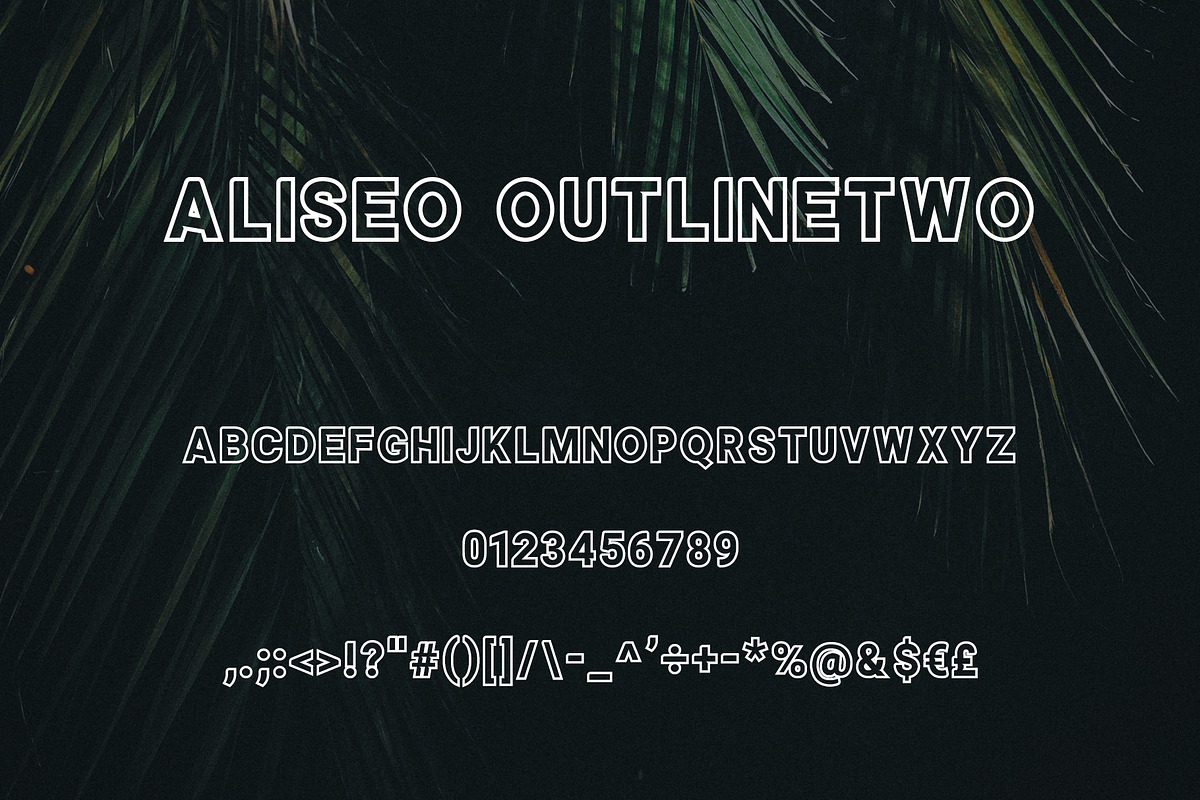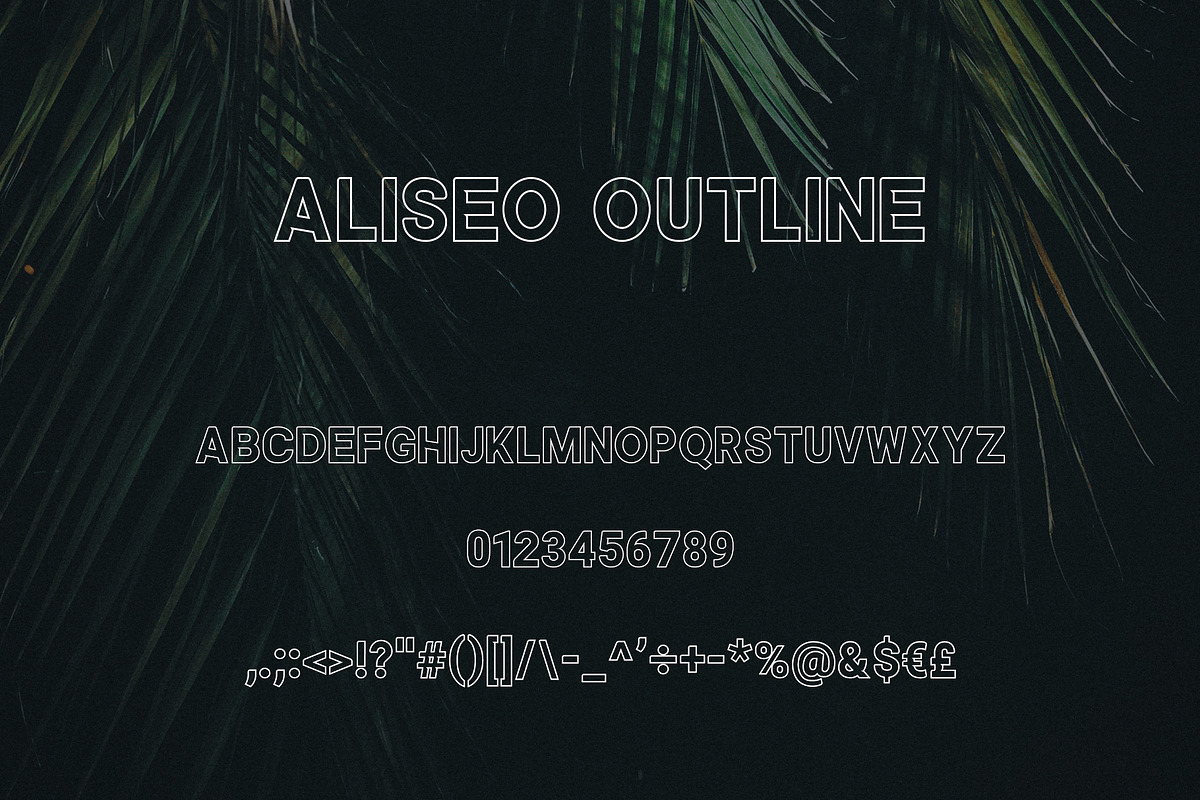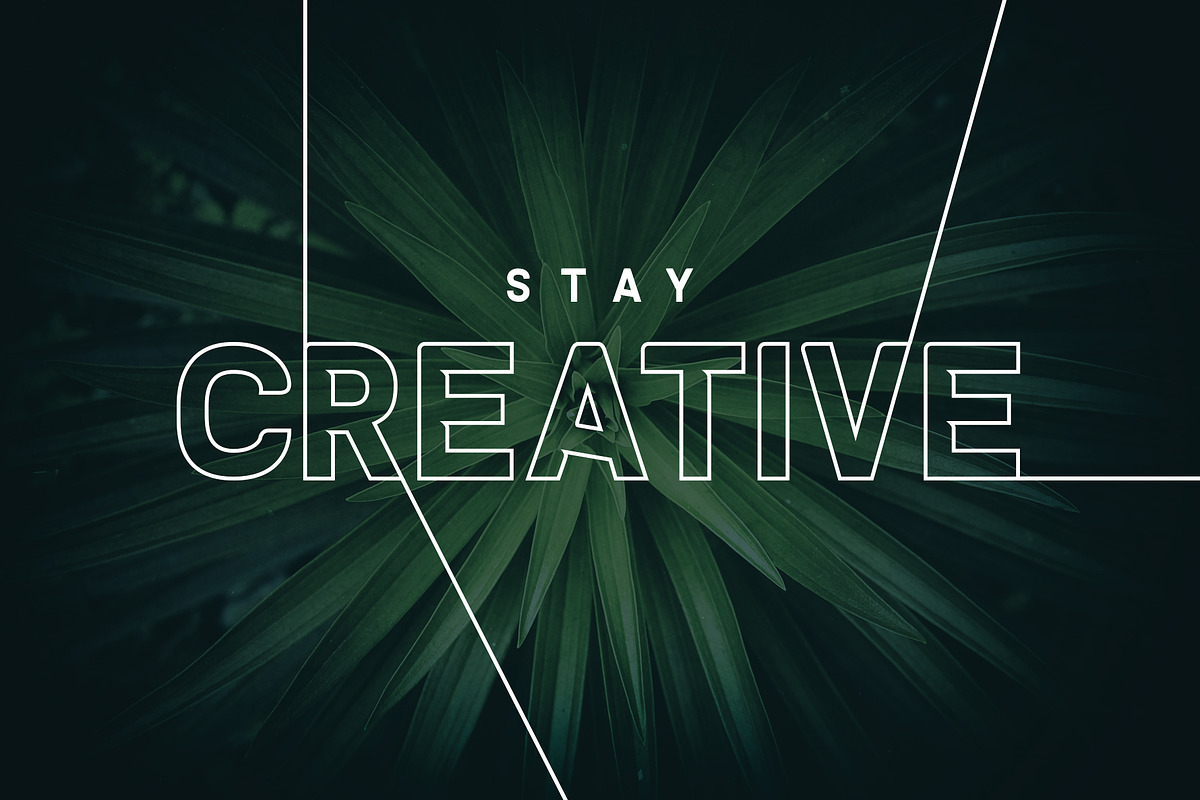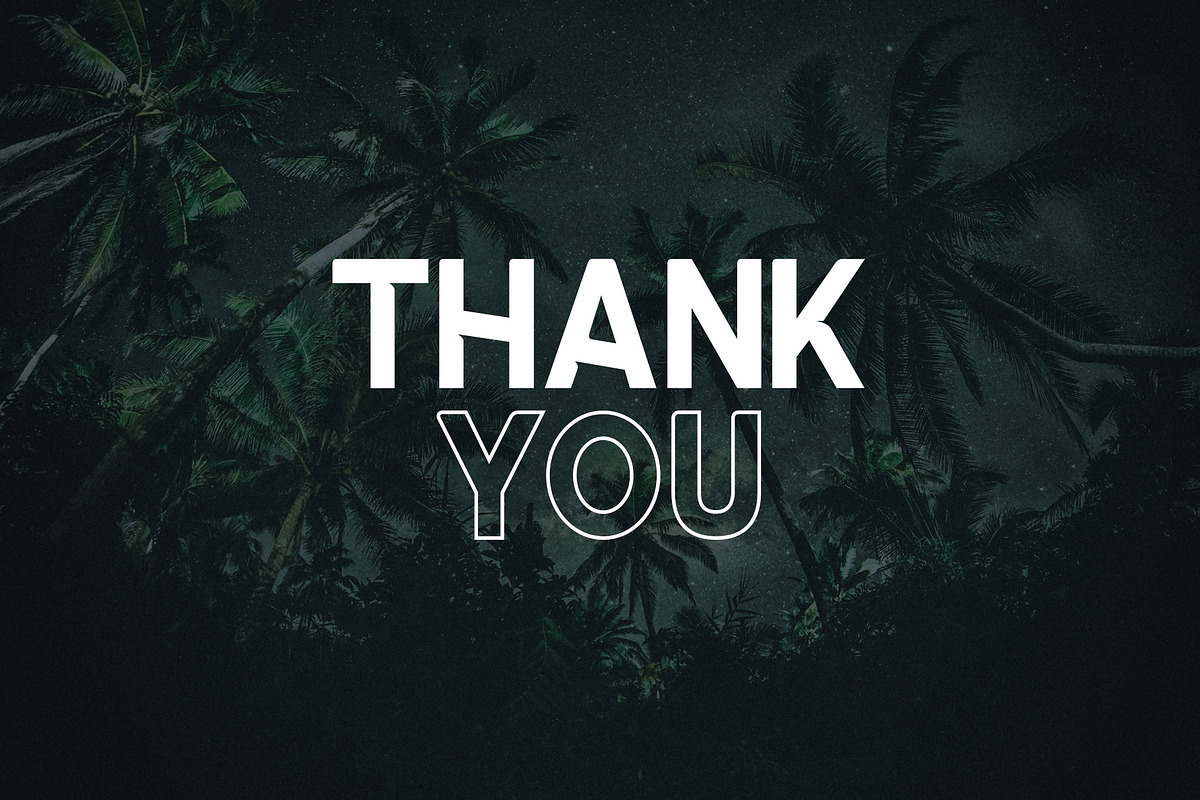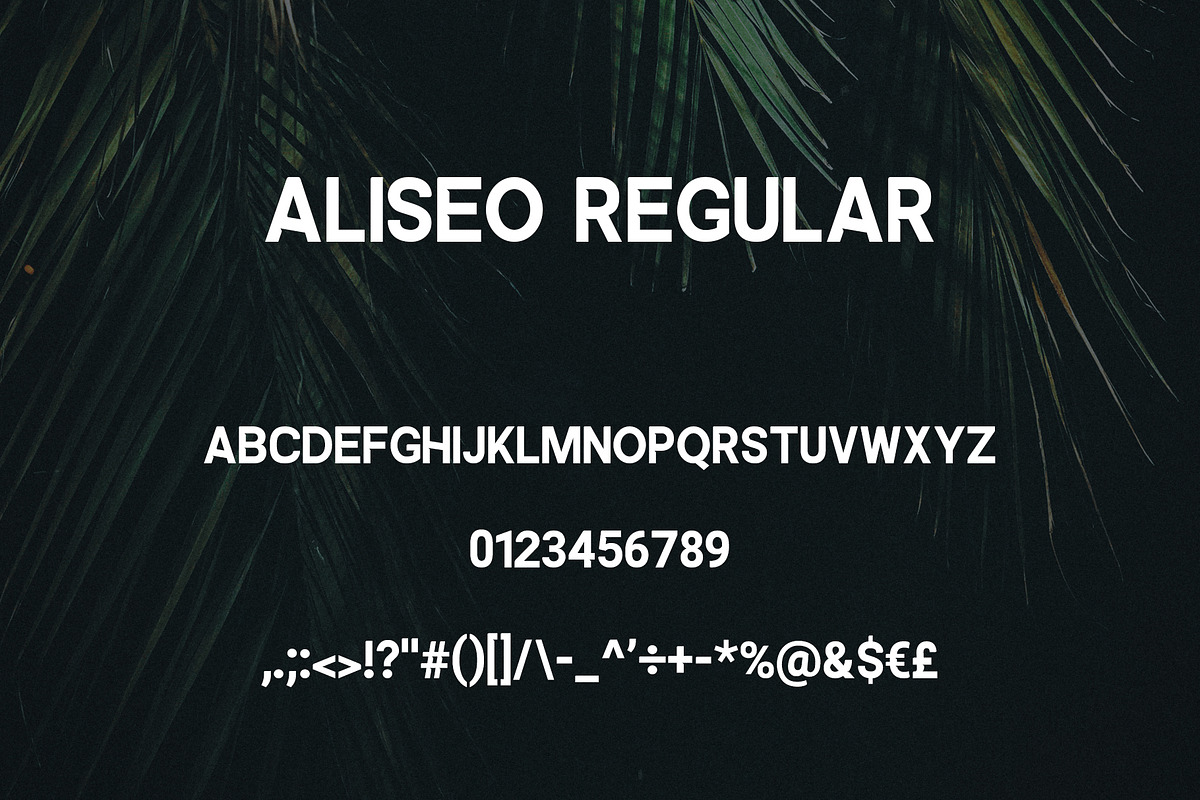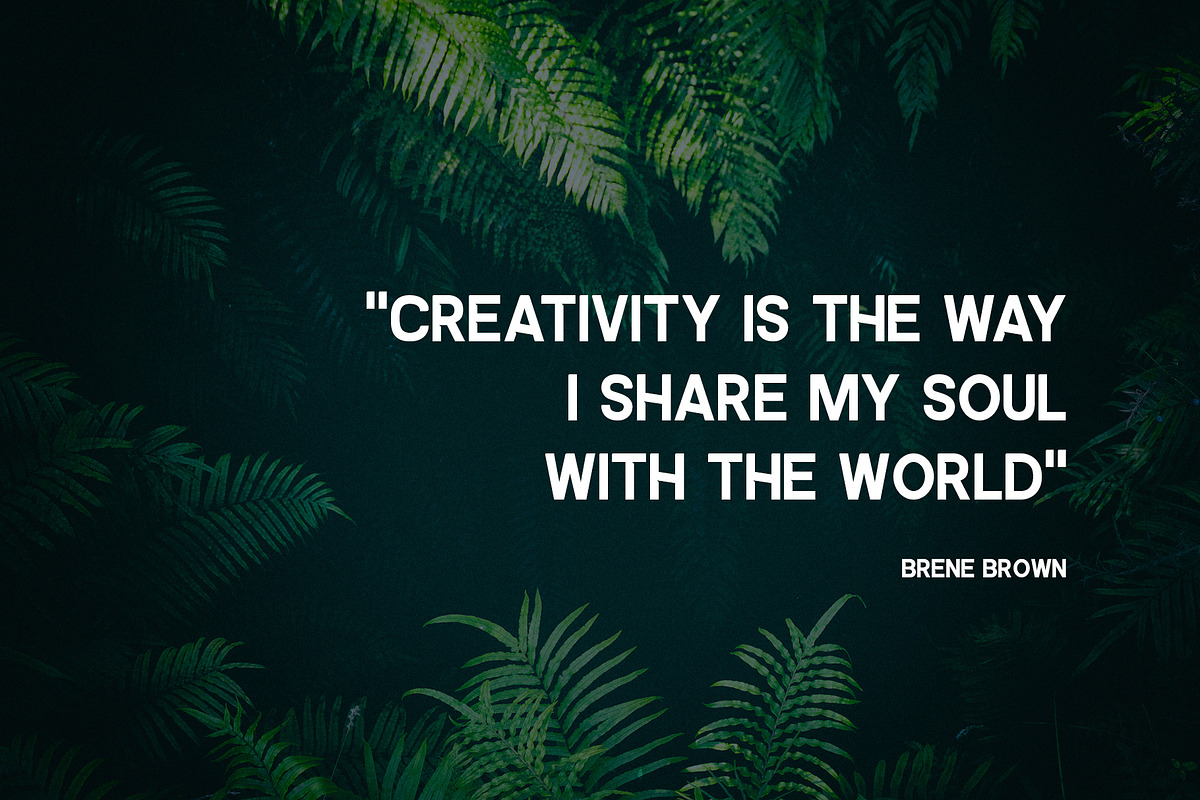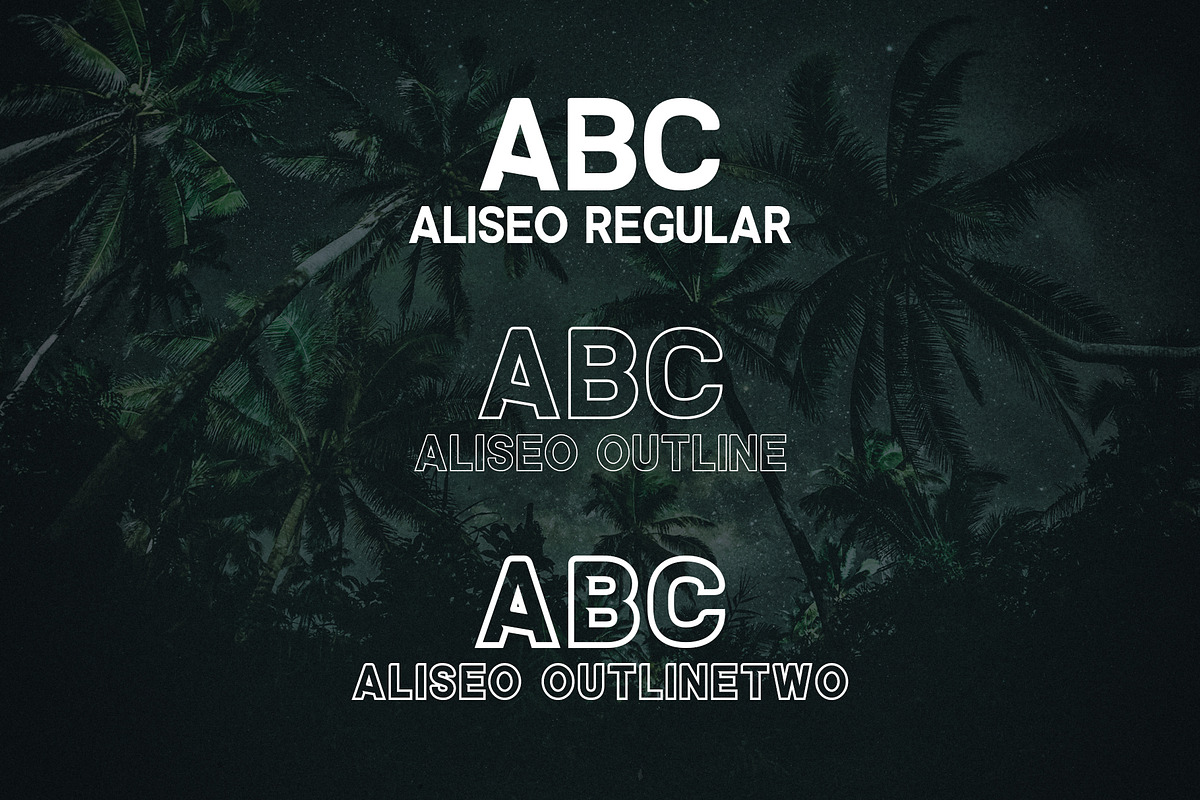
Aliseo Font Family - Sans Serif
Aliseo is a strong and clean sans serif font. It's a versatile font family designed for strong, classic branding. Aliseo works great in any branding, logos, magazines, videos, product packaging, website headers, clothing designs and much more.
- ALISEO Regular
- ALISEO Outline-Two
- ALISEO Outline